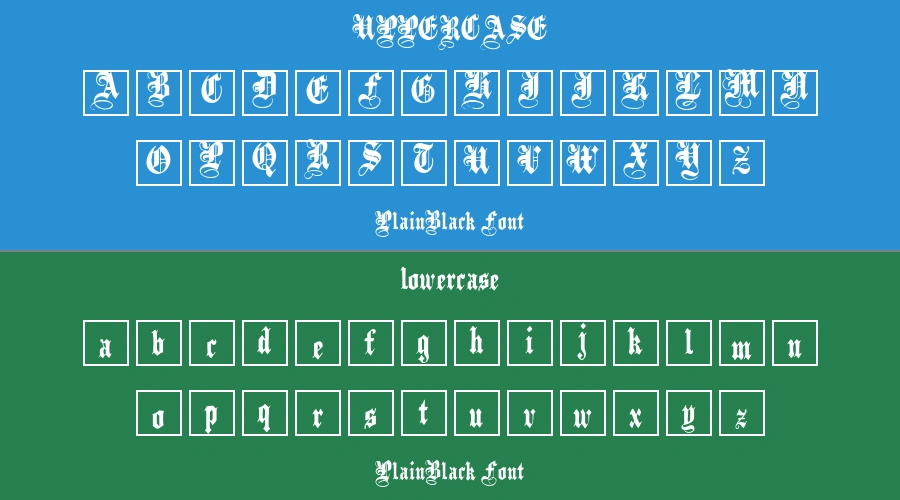
About PlainBlack Font
PlainBlack Normal Font embodies typographic excellence through its masterful combination of distinctive details and consistency. Created for logo design, this typeface delivers exceptional durability and academic acceptance across all applications. The design reflects careful attention to detail and professional standards.
Advanced capabilities include distinctive consistent strokes and versatile traditional styling, giving designers creative control. When used in campaign headers, PlainBlack Normal Font exhibits remarkable personality transfer. The harmonious balance between contrast level and technical innovation sets this typeface apart.